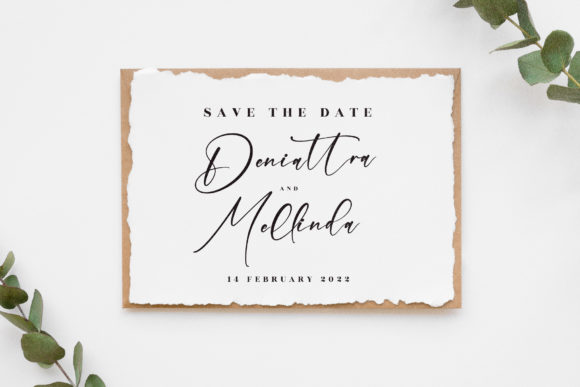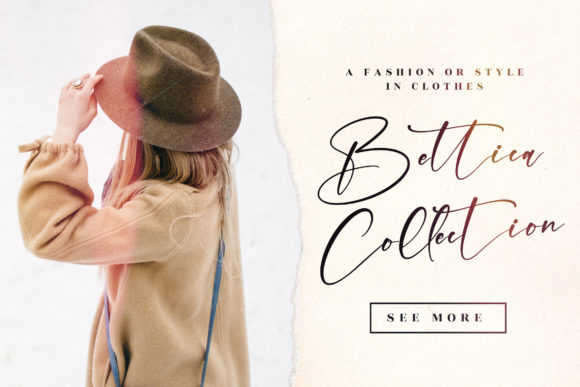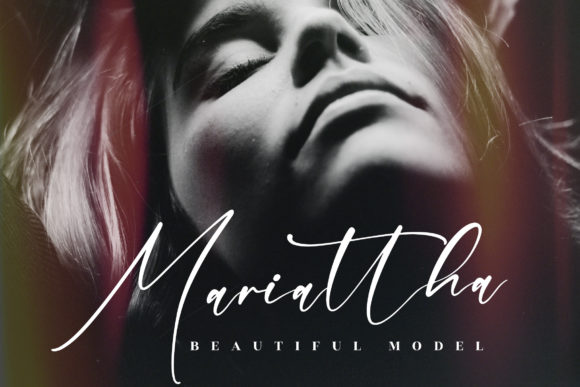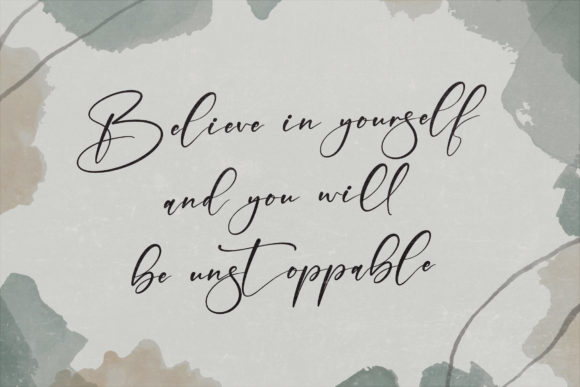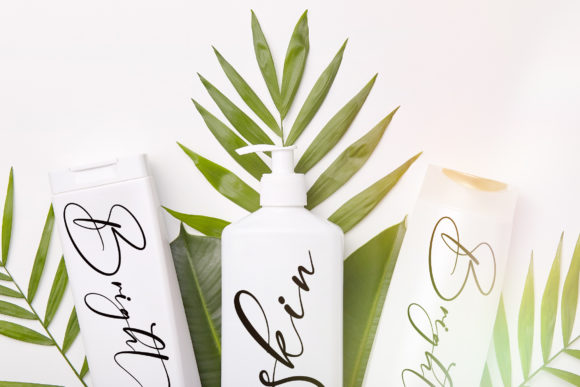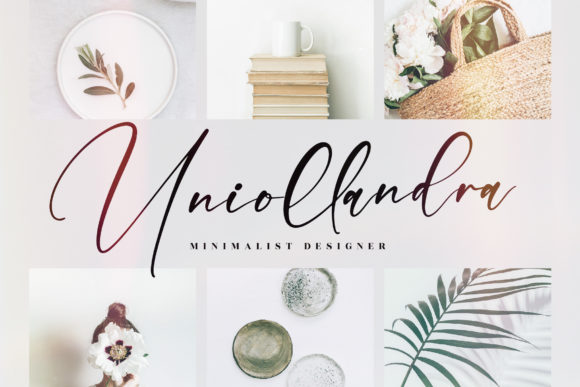
Introduction to Marttha Unsllah Font
Have you ever found yourself staring at a blank canvas, desperately searching for the perfect font to bring your creative project to life? The struggle is real, but with the right design resource, everything changes. For designers and artists, finding the perfect font can be a game-changer, elevating their work from good to exceptional.
Enter Marttha Unsllah Font, a stunning script font that’s sure to captivate your audience. With its high-quality design and transparent background, this font is perfect for logos, branding projects, and any other creative endeavor that requires a touch of elegance.
Key Features of Marttha Unsllah Font
- High-quality, free download font perfect for creative projects, ideal for designers looking for a unique design resource.
- Unique, elegant script font with a transparent background, suitable for various design applications, including invitations, logos, and more.
- Perfect for designers working on creative projects, such as wedding invitations, branding, and editorial designs.
Honest Review: Marttha Unsllah Font
I recently came across the Marttha Unsllah Font and was excited to give it a try for my latest design project. As a designer, I’m always on the lookout for high-quality design resources that can elevate my creative work.
Here are some things that work well for this font:
- ✨ The font has a beautiful, elegant design that’s perfect for a wide range of creative projects, from wedding invitations to branding materials.
- ✨ The font has a transparent background, making it easy to use in a variety of design contexts.
- ⚠️ The font may not be suitable for all design projects, particularly those that require a more modern or edgy feel.
- ⚠️ Some users may find the font’s elegance to be a bit overbearing or overly formal.
Overall, I’m impressed with the Marttha Unsllah Font and would definitely recommend it to designers who are looking for a high-quality, elegant font for their creative projects.
To get the most out of the Marttha Unsllah Font, use it on a transparent background to create a clean and modern design. Experiment with different font sizes and colors to add visual interest to your design.
The Marttha Unsllah Font is ideal for use in creative projects such as logo designs, business cards, and social media graphics. It is also a great font to use for headings and titles in your design.